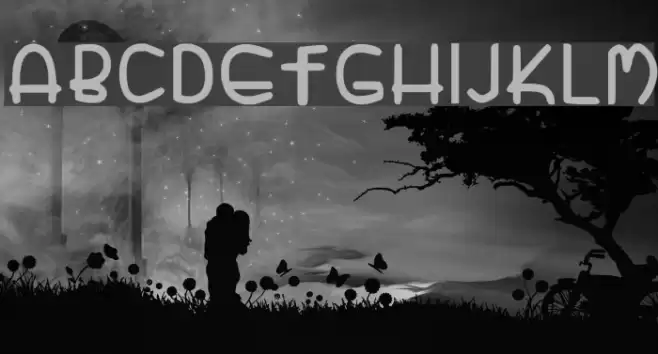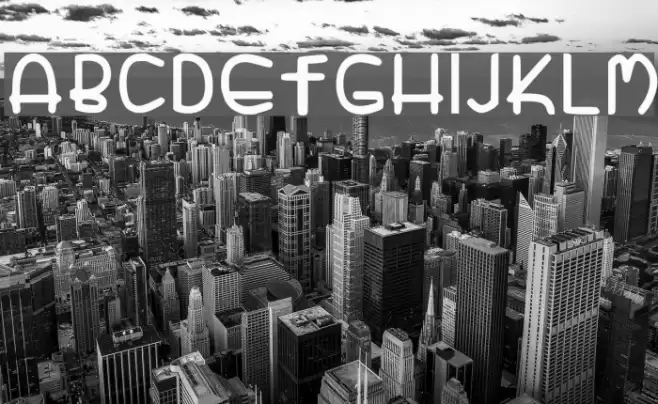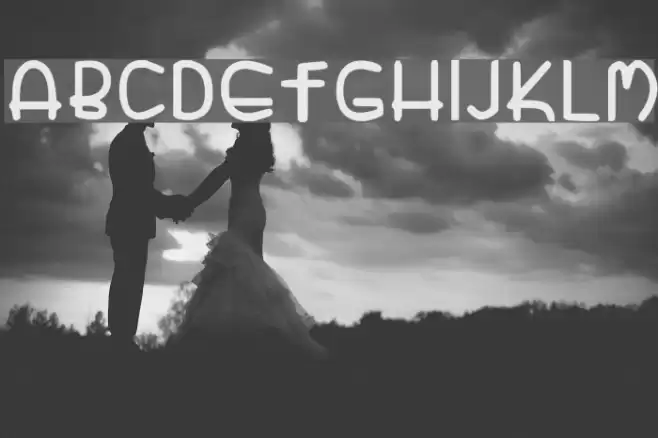
Zatari Regular Font
Zatari Regular Description
This font features a playful and rounded design, characterized by its smooth curves and slightly whimsical appearance. The letters have a consistent stroke width, giving it a uniform look. The uppercase letters are bold and prominent, while the lowercase letters maintain the same playful style with a slightly more compact form. The numbers and special characters follow the same design principles, ensuring a cohesive look across all characters. This font exudes a friendly and approachable vibe, making it suitable for a variety of creative projects.
A playful, rounded font with smooth curves and a whimsical style from Uncategorized fonts.
- Proposed Projects: Ideal for children's books, playful branding, casual invitations, and creative posters.
- Overall Style: Playful